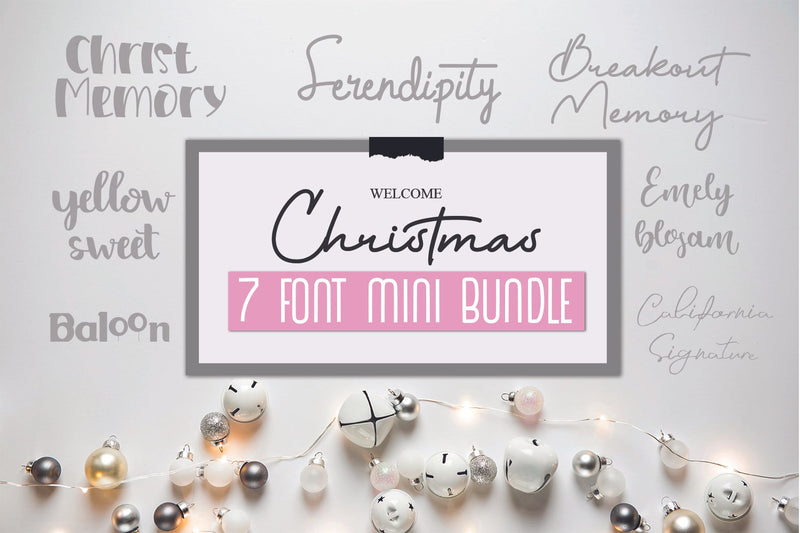
Welcome, Christmas 7 Font Mini Bundle – In this bundle include handwritten font, signature font, display font, with an elegant style that can enhance the quality of your Christmas designs.
Welcome, Christmas 7 Font Mini Bundle – This Font is perfect for designs, logos, social media, brands, advertisements, product designs, handwritten quotes, product packaging, headers, posters, merchandise, and other designs.